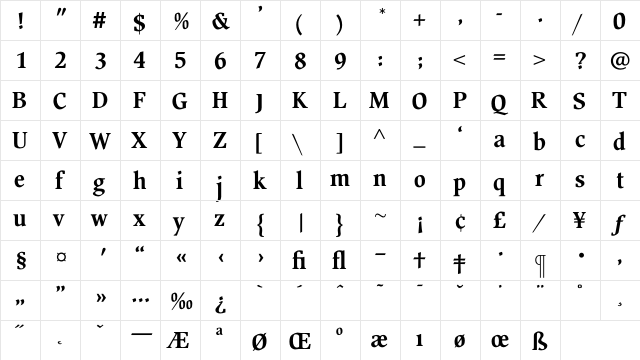
BeckenhamBold Regular
Design Context for BeckenhamBold Typeface
BeckenhamBold offers clean, dependable letterforms without strong stylistic allegiance, making it a practical choice for designers who need flexibility. The heavy weight commands attention and anchors typographic hierarchies.